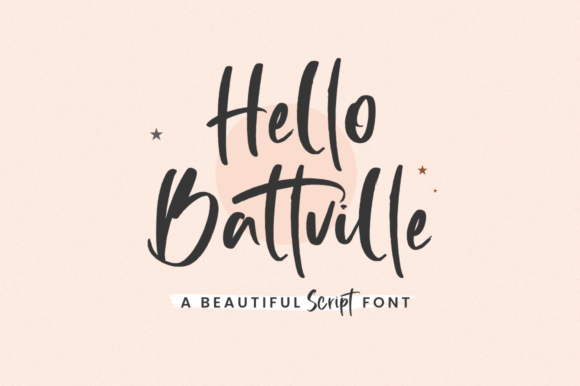
Meet Your New Best Friend: Hello Battville Font
Have you ever been brainstorming ideas for a design project, and suddenly, the perfect font pops into your head? For many designers, this moment is a game-changer. For us, it’s the moment when we discover the perfect script font to elevate our creations. And that’s exactly what Hello Battville Font does – it adds a touch of whimsy and warmth to any design.
Hello Battville Font is a beautiful, relaxed script font designed to make your designs stand out. Whether you’re creating wedding invitations, thank you cards, or business cards, this font is sure to add a personal touch. Its friendly and approachable nature makes it perfect for designers who want to convey a sense of warmth and connection with their audience.
Hello Battville Font Key Features
- Font Family: Hello Battville Font is a unique, hand-drawn font designed specifically for digital use.
- Unique Characteristics: The Hello Battville Font features a playful, cursive design with a mix of rounded and angular shapes, making it ideal for creative and whimsical projects.
- Character Set: The font includes a comprehensive set of characters, including uppercase and lowercase letters, numerals, punctuation marks, and special characters.
Hello Battville Font Review
I must say, I was excited to dive into the world of “Hello Battville Font”. The moment I opened the file, I was hit with a wave of nostalgia – the font’s quirky, playful vibe immediately reminded me of old-school video games. ✨ The designer’s attention to detail is evident in the way the letters seem to dance across the screen, each one imbued with a sense of energy and whimsy.
However, as I started to use the font in a design project, I encountered a few limitations that made me pause. ✨ Here are a few issues I found:
- ⚠️ The font’s irregular shape and size make it challenging to use in conjunction with other, more traditional fonts.
- ⚠️ The font’s style may not be suitable for all types of projects, particularly those that require a more serious or professional tone.
Overall, I’d say that “Hello Battville Font” is a great addition to any designer’s toolkit, but it’s not without its limitations. While it’s perfect for projects that require a playful, retro vibe, it may not be the best choice for more serious or complex designs. Still, I appreciate the designer’s creativity and willingness to push the boundaries of what a font can be.
The Hello Battville Font is perfect for creating eye-catching titles, headings, and logos. Here are some tips to get the most out of it:
- Use it sparingly to create a bold and attention-grabbing effect.
- Pair it with other fonts to create a unique and visually appealing typography.
- Experiment with different font sizes and colors to achieve
Alternatives to Hello Battville Font for Designers
Hello Battville Font is a popular font known for its elegant and sophisticated look. However, designers often look for alternatives to suit their specific design needs. Here are a few options:
Bodoni Moda
Bodoni Moda is a classic serif font that exudes luxury and sophistication. It’s ideal for use in high-end branding, advertising, and editorial design. Compared to Hello Battville Font, Bodoni Moda has a more traditional feel and is often used in formal settings. It’s a great choice for designers who want to create a sense of elegance and refinement.
Q: What is the recommended font size for optimal readability with the Hello Battville Font?
The recommended font size for optimal readability with the Hello Battville Font is between 12 and 14 points. However, this may vary depending on the specific design application, screen resolution, and intended use of the font. Experiment with different font sizes to find the optimal setting for your project.